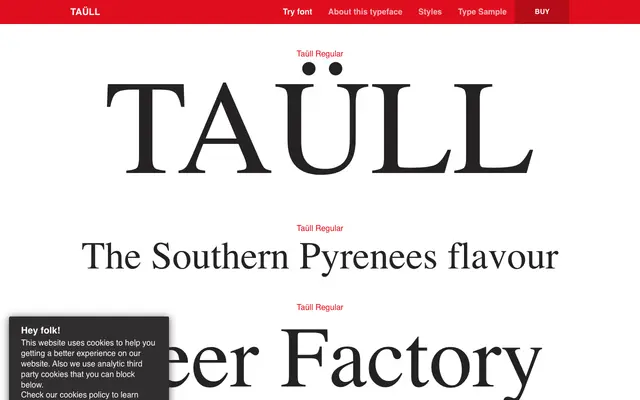
Taüll
Typerepublic · Andreu Balius · 2007
A blackletter display face by Andreu Balius rooted in stone-carved Pyrenean lettering, offering bold angular capitals with humanistic irregularities across a single weight.
Designed in 2007, Taüll draws on ancient blackletter and lapidary scripts from the Southern European Pyrenean tradition, evoking Romanesque churches and mountain villages. Its capital letters are sharp and commanding, tempered by subtle humanistic irregularities that soften the severity typical of northern Gothic forms. A single Regular weight covers an extensive Latin language range including localised forms for Catalan and Dutch.
Taüll is explicitly inspired by ancient blackletter scripts and alphabets carved in stone, featuring bold angular capitals with humanistic irregularities typical of Southern European gothic lettering traditions.